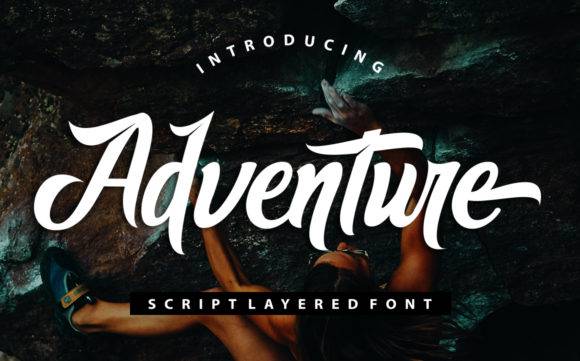
Adventure Font for Headlines, Posters and Branding Projects
This is a bold display font with a rugged edge, designed to evoke movement, exploration, and storytelling. Adventure is perfect for headlines, posters, and branding materials where boldness and style are essential. Its unique characteristics make it an ideal choice for anyone looking to capture attention and convey a sense of dynamism. Whether used in outdoor adventure marketing or creative design, this font pairs effortlessly with other visual elements. Additionally, it can be combined with an animals font for creative projects to enhance themes of nature and exploration. With its striking presence, this font captures attention and adds a dynamic touch to any visual communication. Whether used in outdoor event promotions or creative campaigns, the angellie font for branding projects seamlessly blends strength with artistry. Its versatility makes it an excellent choice for designers looking to make a lasting impression. Its unique character adds an adventurous flair to any project, making it a standout choice for those looking to make an impact. The Arizonia font for creative designs complements the rugged aesthetic, bringing a touch of elegance that balances the boldness. Whether you're crafting a promotional campaign or enhancing your portfolio, this font promises to be a memorable choice. Its unique character and strong presence make it an ideal choice for capturing attention and leaving a lasting impression. Additionally, when paired with the amora font for branding projects, it creates a striking visual narrative that resonates with audiences. This combination enhances the overall aesthetic, enabling brands to stand out in a competitive market.
As a font entity, Adventure provides strong visual weight while retaining legibility, making it ideal for title treatments, merchandise, and packaging. The handcrafted vibe brings warmth and authenticity to any message.
Use it across print or digital formats to elevate your designs with a sense of journey and creativity.
- Adventure-themed logos and apparel
- Event posters and flyer designs
- Print-on-demand merchandise
- Social media banners and quote graphics
- Rustic labels, tags, and product branding
- Bold personality with handcrafted charm
- Great for storytelling brands and campaigns
- Works across both print and screen media
- Ideal for adventurous, expressive visuals
Q: What kind of font is Adventure?
A: Adventure is a bold, rustic display font made for strong headlines, branding, and poster layouts. Its rugged aesthetic captures the spirit of exploration and excitement, making it an ideal choice for outdoor and travel-related designs. Moreover, Adventure's versatility allows it to shine in various contexts, serving as a fantastic latin font for branding projects. Whether used in large formats or in smaller types, it maintains a captivating presence that commands attention.